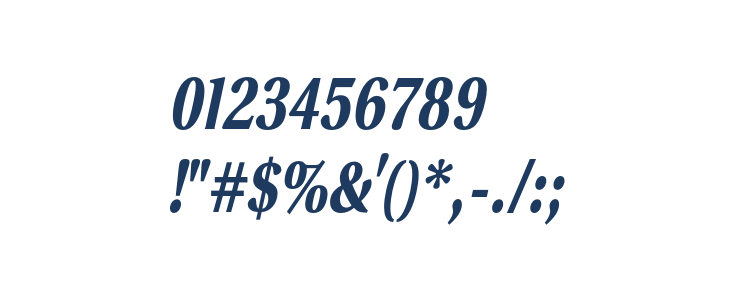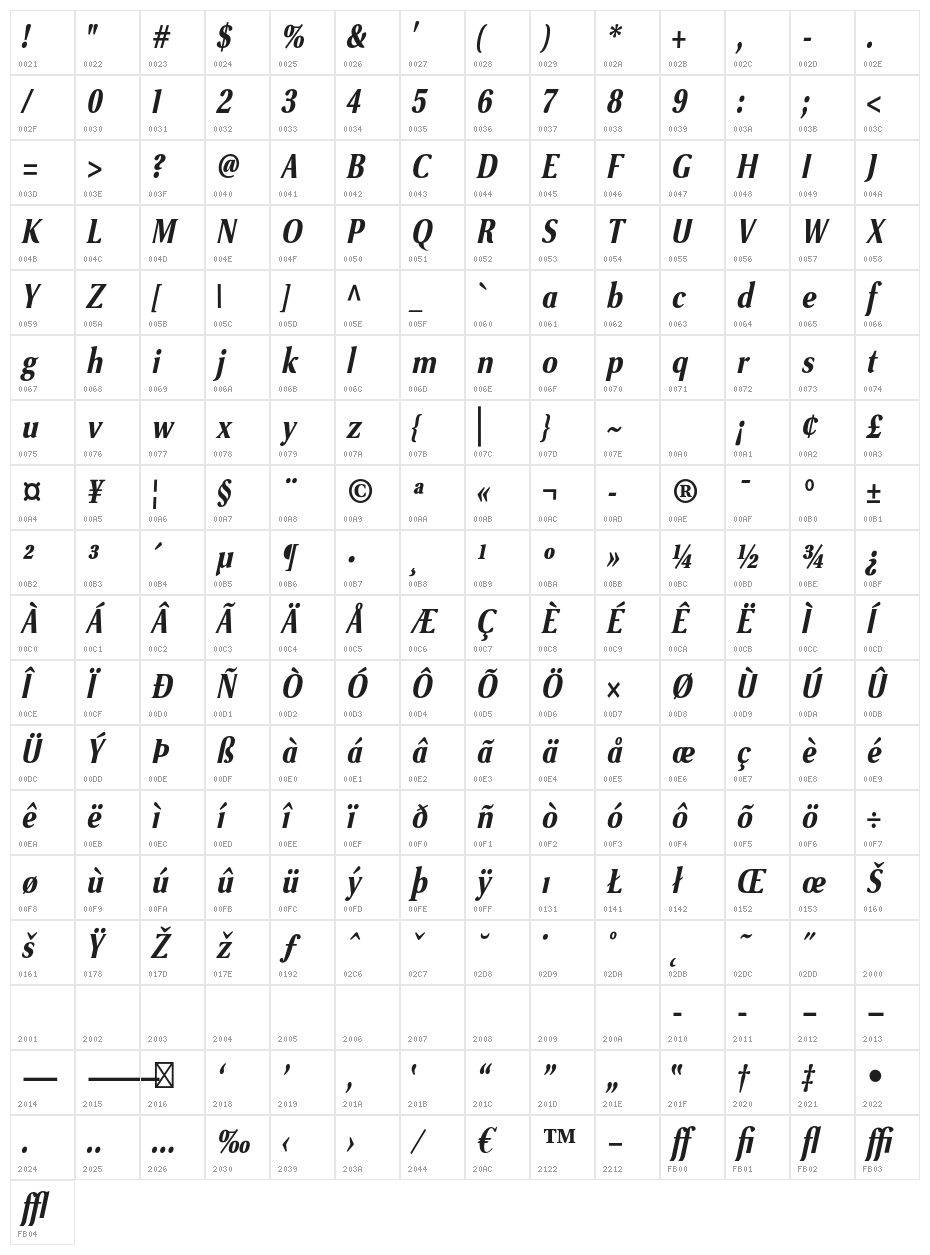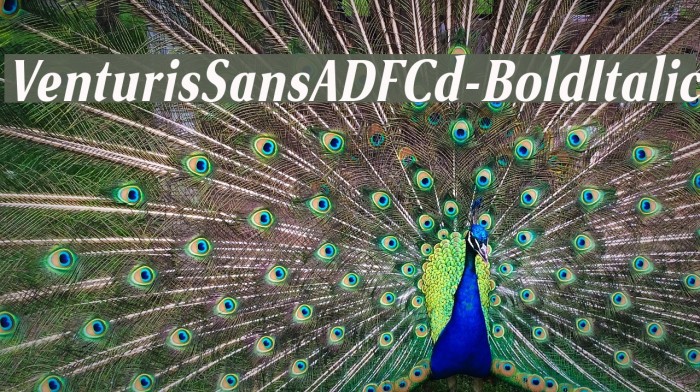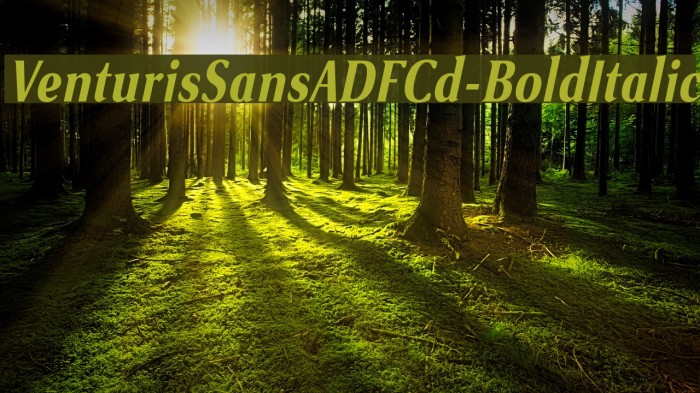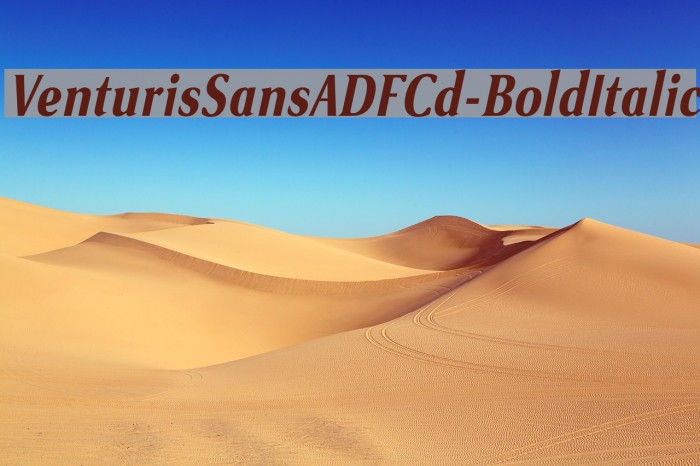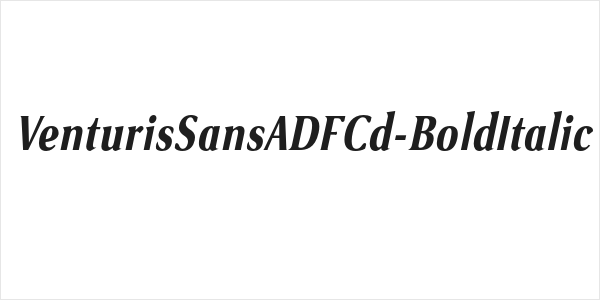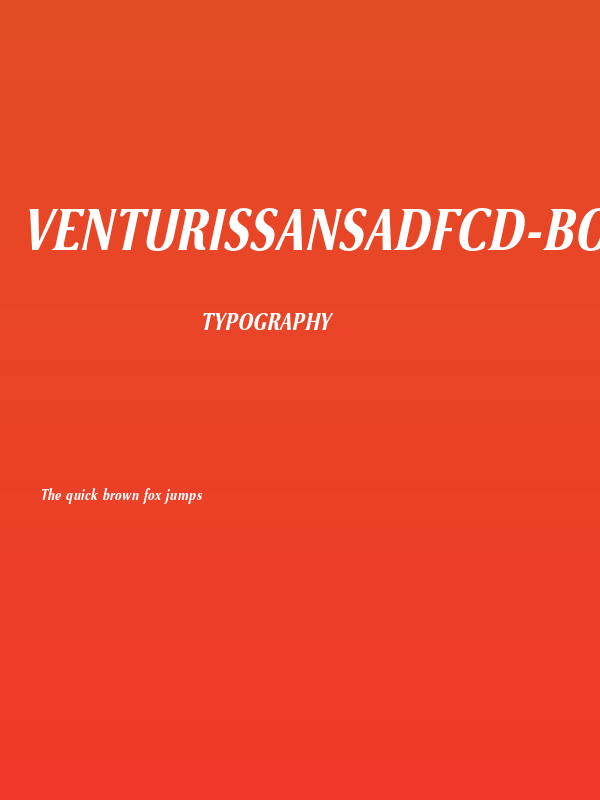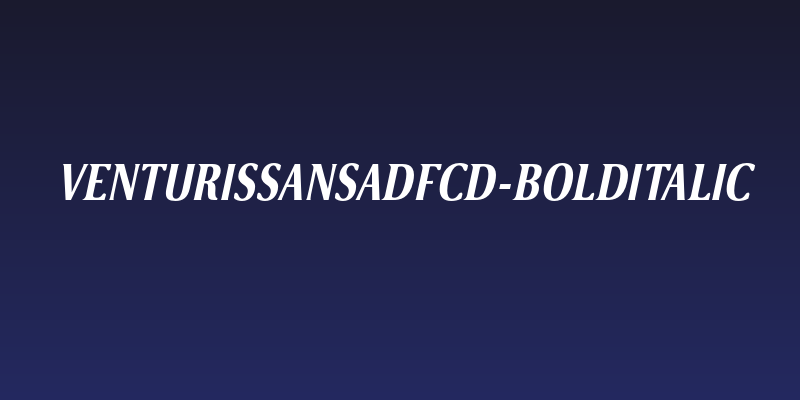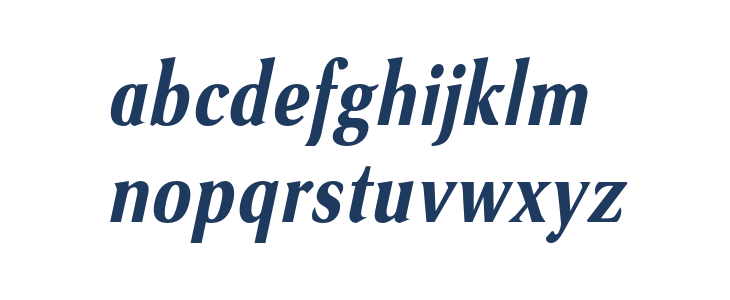
VenturisSansADFCd-BoldItalic Font
VenturisSansADFCd-BoldItalic Description
This font features a bold and italicized style, combining a strong presence with a dynamic slant. The characters are well-defined with a moderate contrast in stroke thickness, giving it a robust yet elegant appearance. The uppercase letters are tall and commanding, while the lowercase letters maintain a consistent flow, enhancing readability. The numerals are clear and distinct, making them suitable for various applications. Special characters are included, offering versatility for different design needs. The overall design is modern with a touch of classic elegance, making it suitable for both digital and print media.